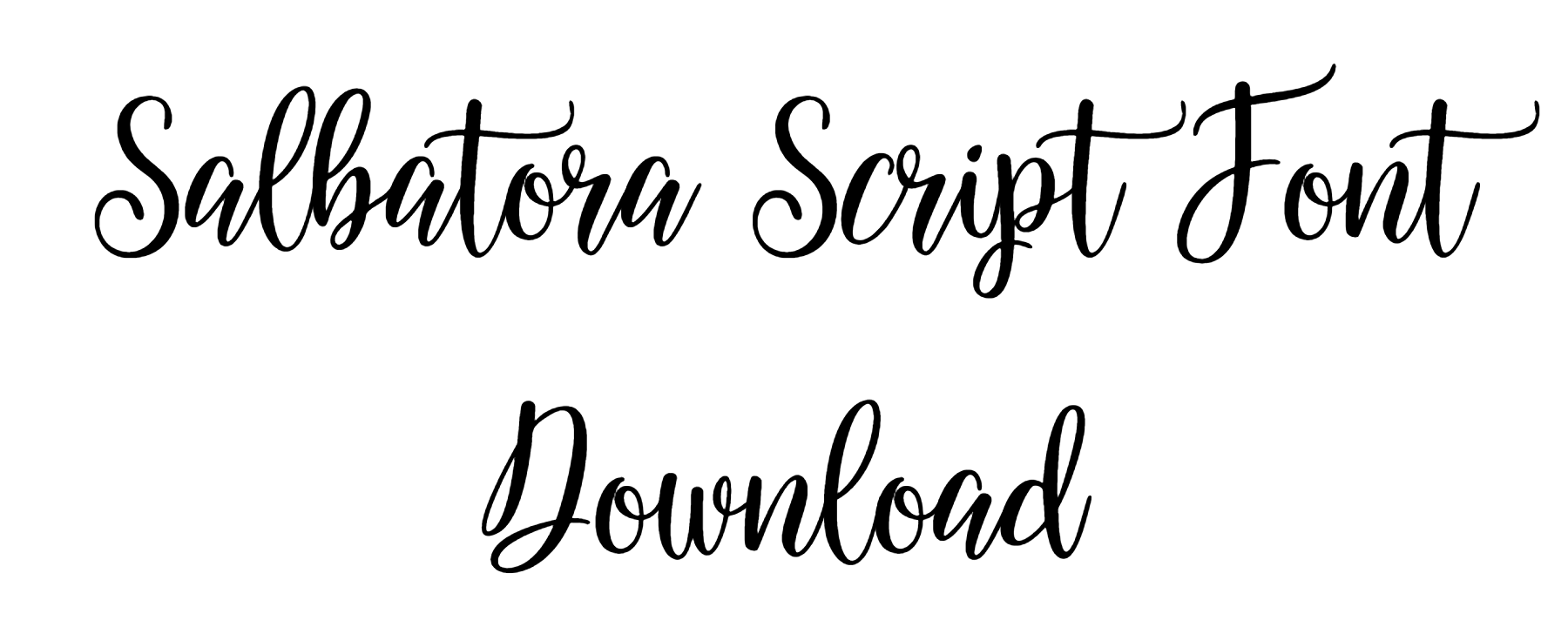
Salbatora Script
Salbatora Script is a calligraphy font created by Area Type (2017). It has that hand-lettered, flowing feel people look for when regular type seems too stiff. It's a free download, and you can try it with your own text in the preview above first.
- Designer: Area Type
- OpenType features: Ligatures and 4 stylistic sets
- Extra characters: 61 copy-and-paste alternates (Private Use Area)
With complete upper and lowercase letters and all ten digits, Salbatora Script is ready for real wording, not just a single headline. Everyday marks like &, !, ? and @ are there too. Thanks to its accented letters, it also works for Spanish, French, German, Portuguese and Italian, not just English.
Designers usually reach for fonts like Salbatora Script when they're making wedding invitations, certificates and elegant quotes. Its lowercase letters are small compared to the capitals, so set it a size or two bigger than usual. Script fonts read best in short bursts, so keep it to names, titles and one-line quotes. Skip all caps: script capitals are drawn to start a word, not to fill one.
Yes. Salbatora Script includes the accented letters needed for Spanish, French, German, Portuguese and Italian, so it works for more than just English.